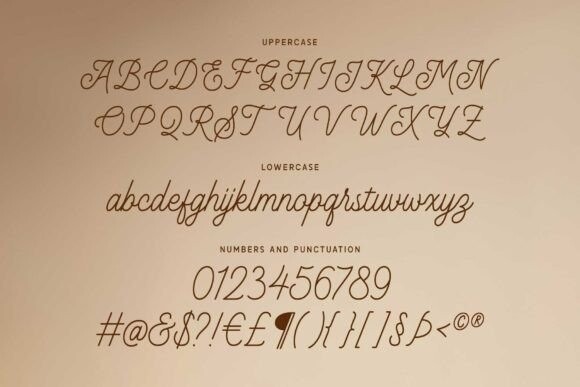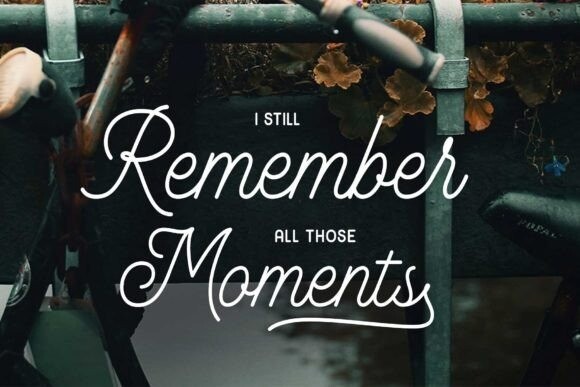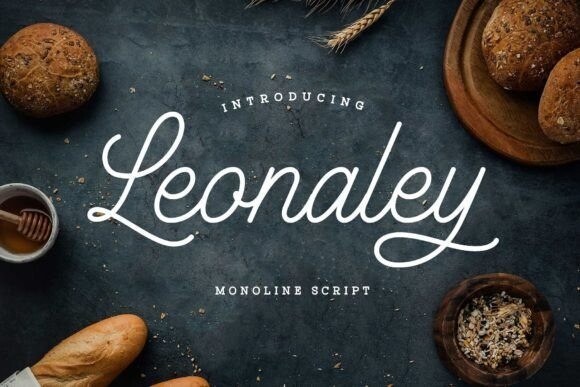
Leonaley Font
Designer: Arterfak Project
Leonaley Font, a minimalist monoline font. Specifically designed with thin strokes and rich swirls to accentuate the dramatic side of this font, reaching a wider range of design styles. Leonaley offers a sweet, clean, and elegant visual impression, making it suitable for broader media applications such as weddings, quotes, greeting cards, boutiques, logos, labels, neon signs, and more.